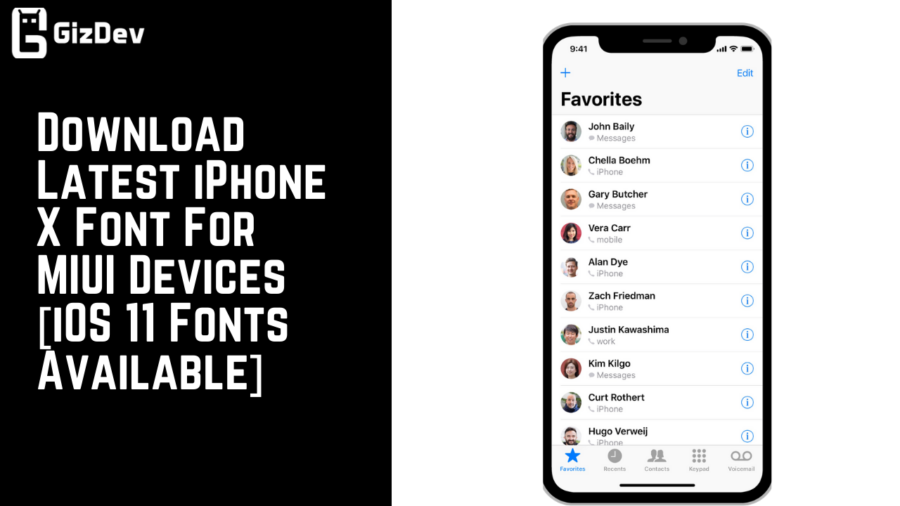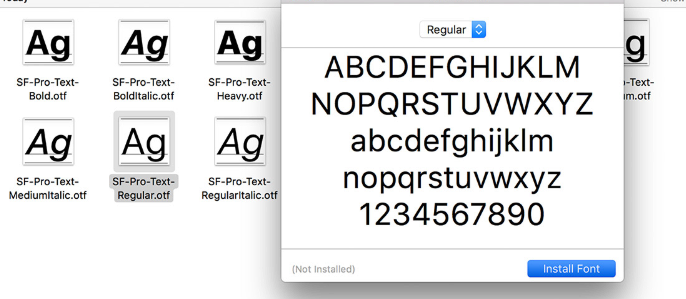
Download Latest iPhone X Font For MIUI Devices [iOS 11 Fonts Available]
The iPhone has different and unique everything. A completely different system from Android. The iPhone X Font is also good and if you want to use it on your MIUI device you can use it easily. The iOS 11 came with the iPhone X and the fonts are too. You can use the fonts in your MIUI devices easily. Follow the post to know how to install iPhone X Font for MIUI. You can try using on other Android devices too by if you have rooted Android its easy to use. iOS 11 font is the San Fransisco font which is popular. This font comes default with iPhone now.
1. iOS 11 Font/ iPhone X Font:
iOS 11 Font/ iPhone X Font:
Apple bragged so much about their font in WWDC last year. With the introduction of the new iPhone. The Fonts_iPhone is introduced. The fonts iPhone made a name as San Fransisco font. Previous fonts iPhone called Helvetica which is now known as San Fransisco font. Apple showcased the newer version of Helvetica introduced as San Francisco font. This font is made available with iOS 11 too. The iOS 11 font or iPhone 11 fonts same adapted in the later versions too.